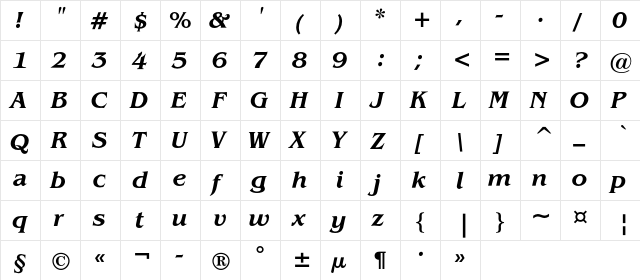
BeneficeAP Bold Italic
Design Context for BeneficeAP Typeface
BeneficeAP is a composed and adaptable typeface that performs quietly and consistently across a wide range of design contexts. The dynamic lean of this cut emphasises speed and emphasis in any layout. Its bold stroke weight gives it real presence on the page.
Pro Tip: Try BeneficeAP for annotation and caption copy alongside an upright companion — the contrast in angle creates a dynamic but ordered typographic system.